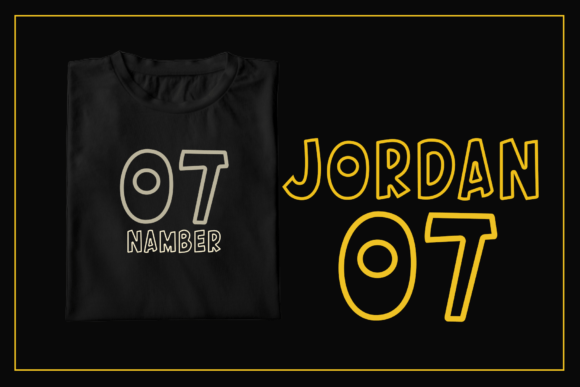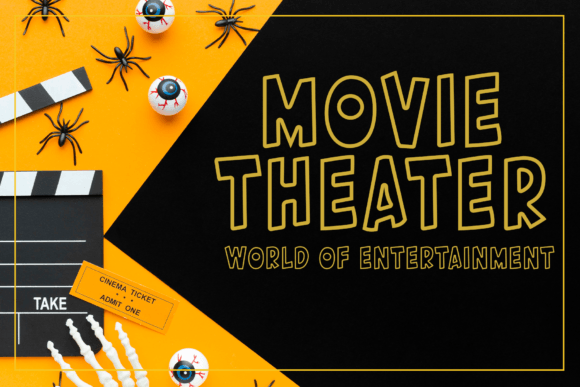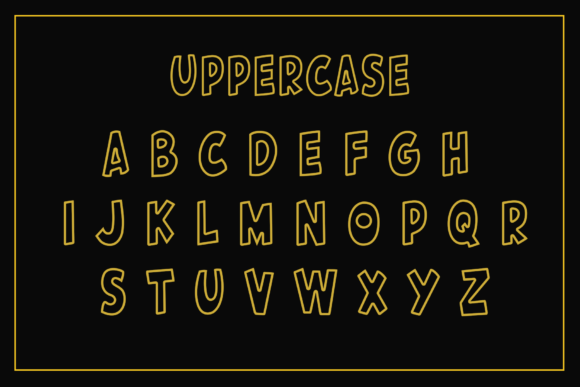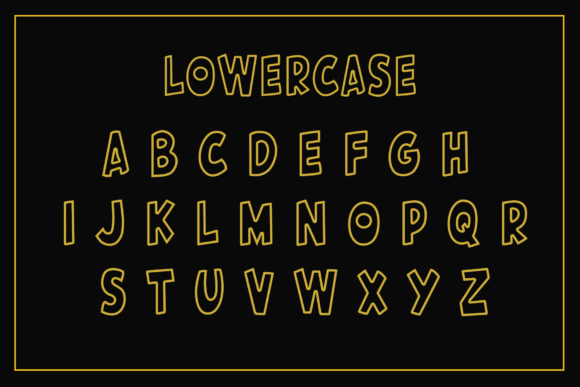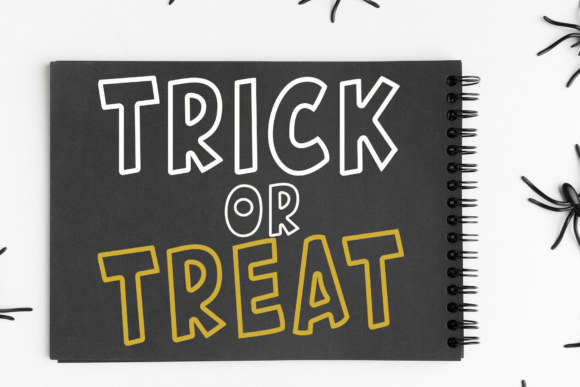
Breast Cancer Font: A Spooky yet Playful Typeface for Halloween Designs
As the spookiest time of the year approaches, designers and crafters are on the lookout for the perfect font to add a touch of eerie fun to their Halloween-themed designs. Look no further than the Breast Cancer Font, a delightfully spooky typeface that embodies the playful essence of Halloween. With its eerie, yet whimsical lettering, this font is perfect for adding a dash of creepy fun to your party invitations, haunted house flyers, social media posts, and more.
The Perfect Blend of Spooky and Playful
Breast Cancer Font strikes the perfect balance between spooky and playful, making it an ideal choice for Halloween designs. Its eerie lettering is sure to send shivers down the spine, while its whimsical touch adds a playful twist that’s perfect for the holiday. Whether you’re creating designs for a Halloween party, a haunted house, or simply want to add a touch of spooky fun to your social media posts, this font is sure to cast a spell of excitement over your text.
Uses for Breast Cancer Font
The versatility of Breast Cancer Font makes it perfect for a wide range of Halloween-themed designs, including:
- Party invitations: Create spooky and inviting party invitations that will set the tone for a howling good time.
- Haunted house flyers: Design eye-catching flyers that will draw in thrill-seekers and horror fans.
- Social media posts: Add a touch of spooky fun to your social media posts and make your followers shiver with delight.
- T-Shirts and Merchandise: Create spooky and playful designs for Halloween-themed t-shirts, hoodies, and other merchandise.
- Signs and Banners: Design eye-catching signs and banners that will add a touch of eerie fun to your Halloween decorations.
Why Choose Breast Cancer Font?
So why choose Breast Cancer Font for your Halloween designs? Here are just a few reasons:
- Unique and Eye-Catching: Breast Cancer Font is a one-of-a-kind typeface that’s sure to grab attention and stand out from the crowd.
- Versatile: Breast Cancer Font can be used for a wide range of Halloween-themed designs, from party invitations to social media posts.
- High-Quality: This font is high-quality and comes with a range of characters, including uppercase and lowercase letters, numbers, and punctuation marks.
Tips for Using Breast Cancer Font
Here are a few tips for getting the most out of Breast Cancer Font:
- Experiment with Colors: Try pairing Breast Cancer Font with a range of spooky colors, such as orange, black, and purple, to create a truly eye-catching design.
- Add Graphics: Consider adding Halloween-themed graphics, such as bats, ghosts, or jack-o-lanterns, to your design to make it even more spooky and fun.
- Play with Texture: Experiment with different textures, such as wood, stone, or blood, to add a touch of eerie realism to your design.